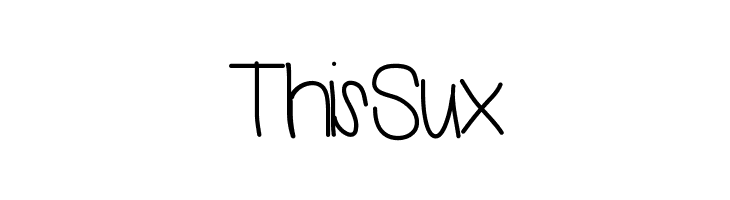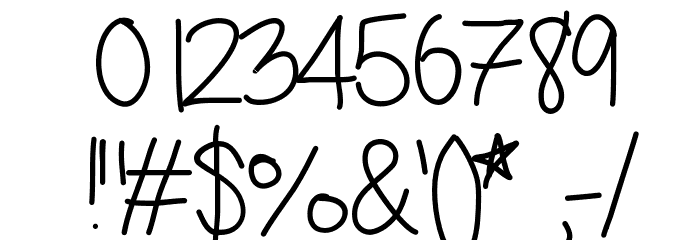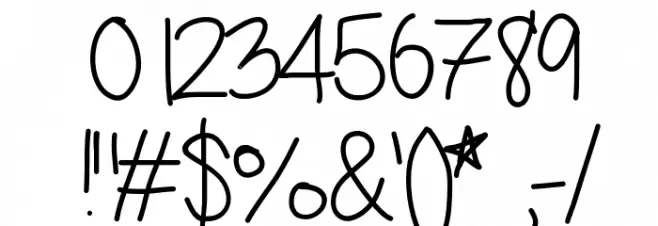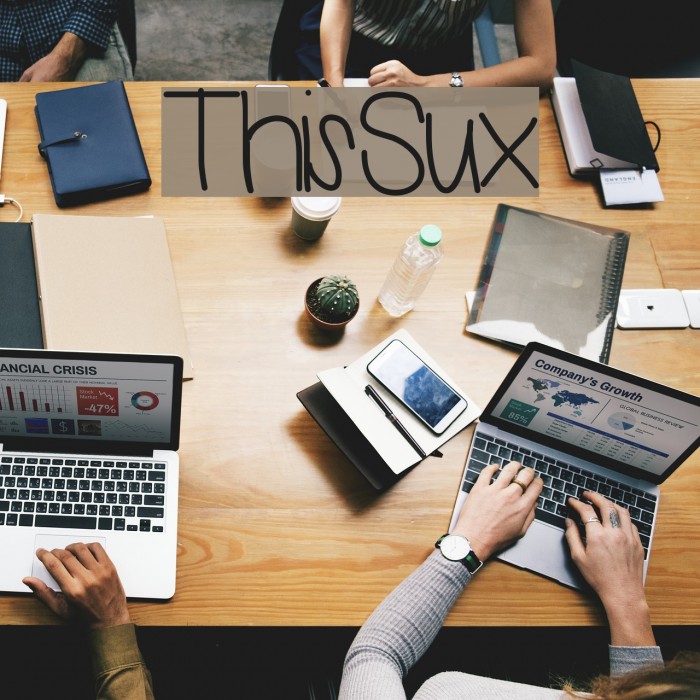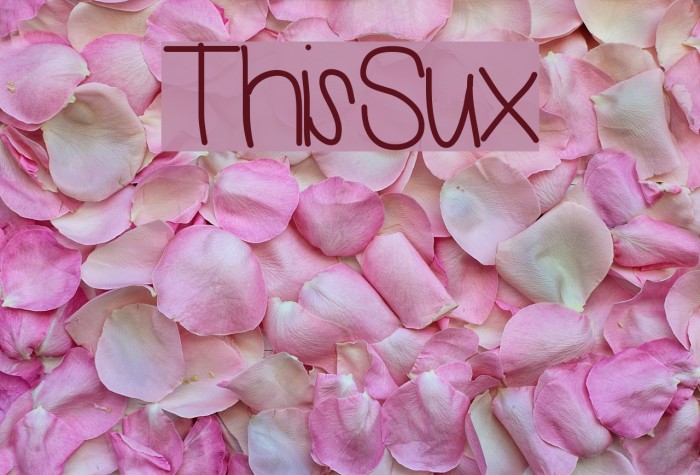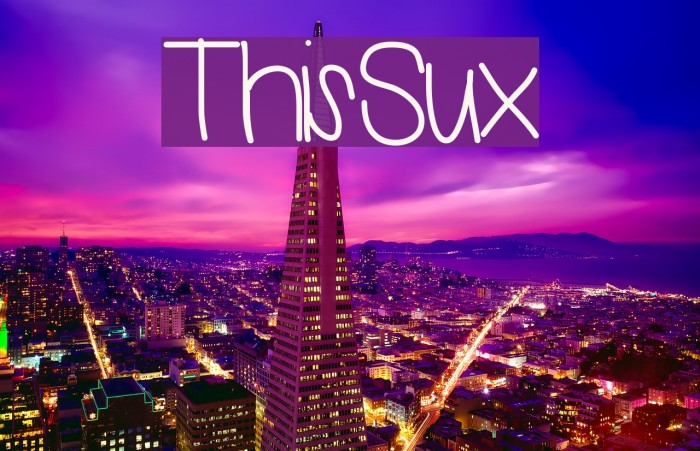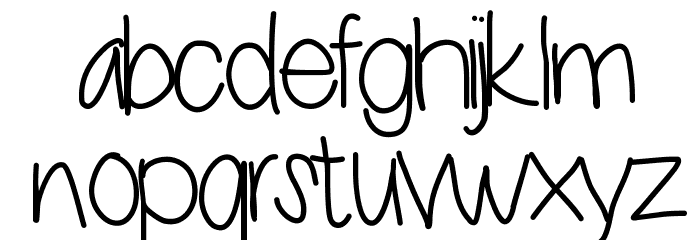
ThisSux Font
ThisSux Description
This playful and casual font features a handwritten style with a whimsical touch. The characters are slightly irregular, giving it a personal and informal feel. The strokes are consistent in thickness, providing a uniform appearance across all characters. The uppercase letters are tall and narrow, while the lowercase letters have a more rounded and open form. The numbers and special characters maintain the same playful style, making it versatile for various uses. The overall design is friendly and approachable, ideal for projects that require a personal touch.
A playful, handwritten font with a whimsical and casual style from Uncategorized fonts.
- Proposed Projects: Ideal for greeting cards, children's books, informal invitations, and playful branding projects.
- Overall Style: Casual
- Use Case: Headlines, Informal text, Creative projects